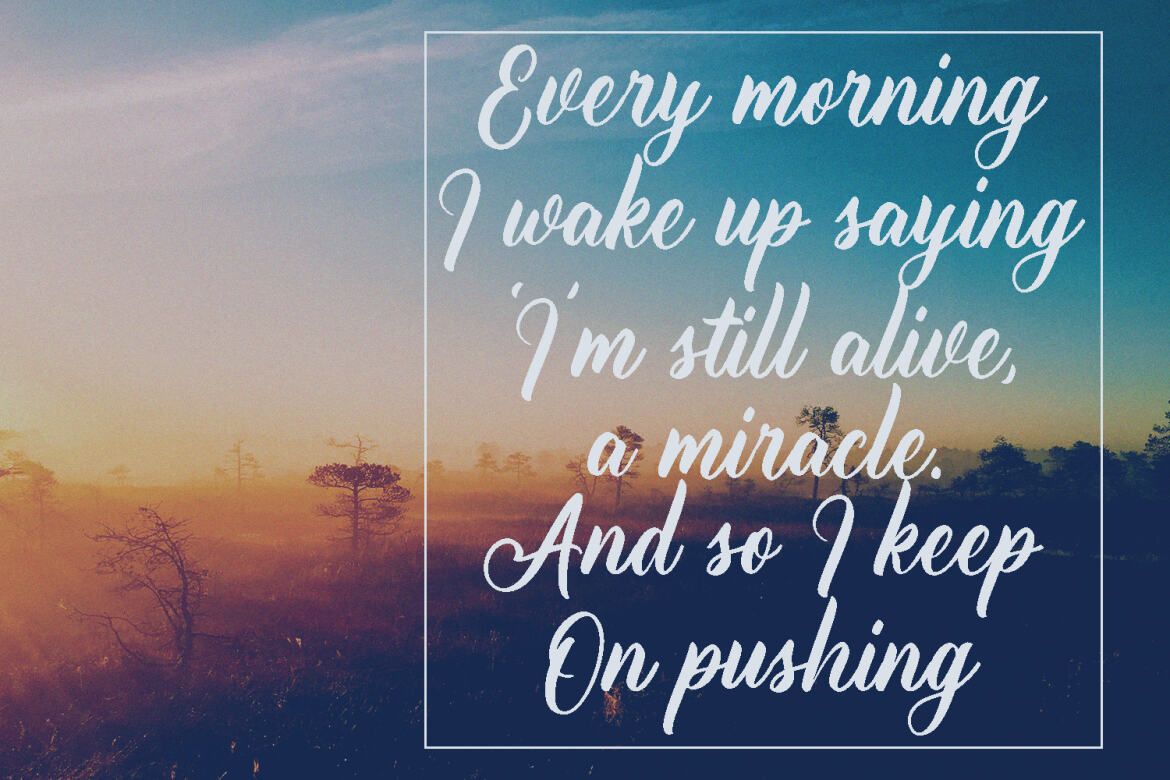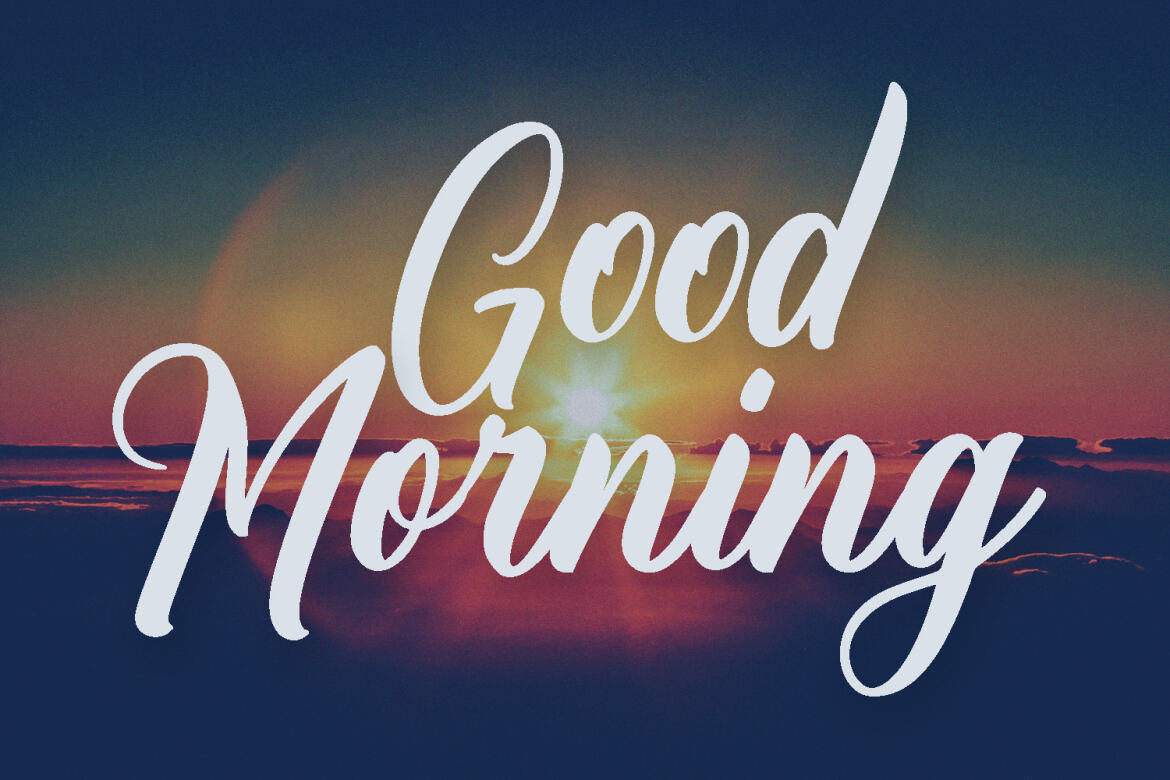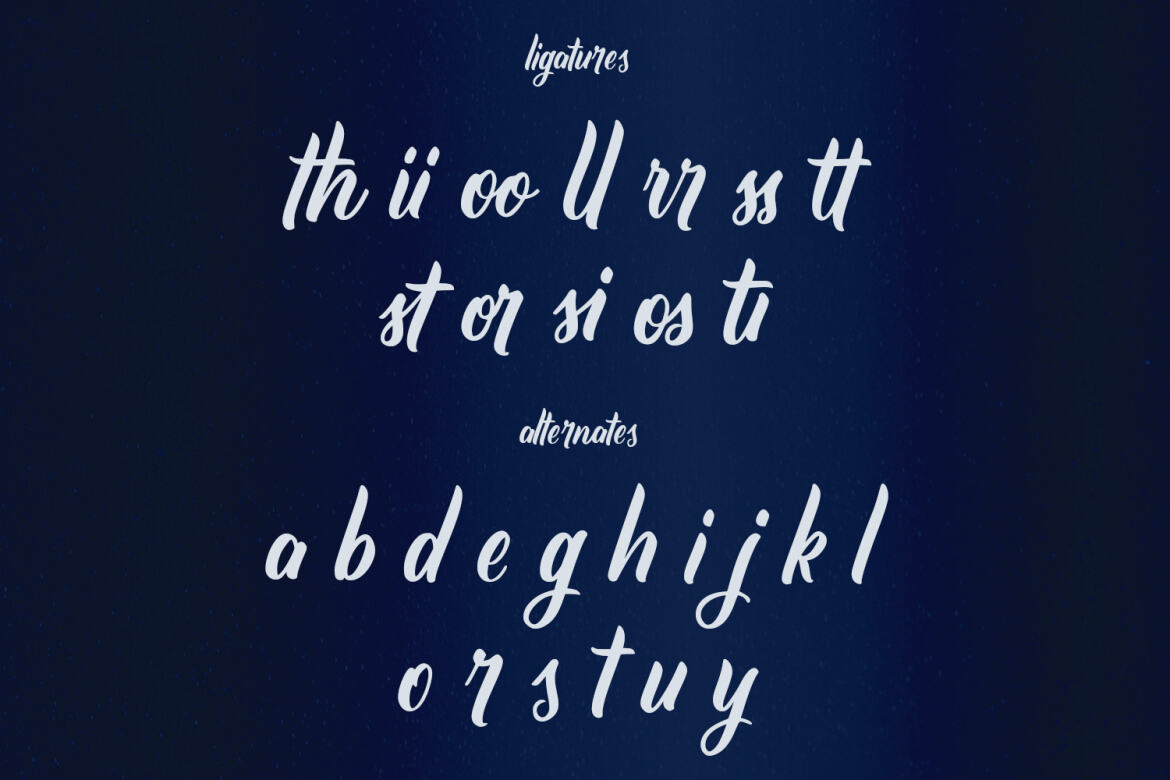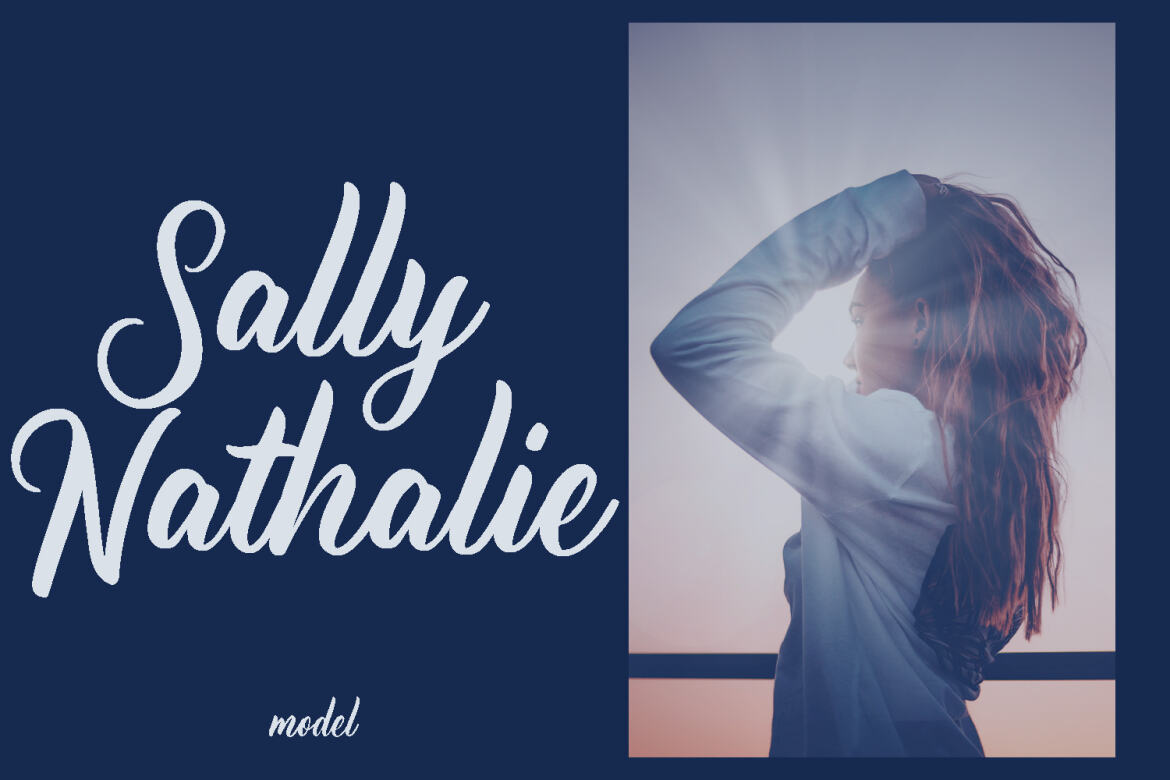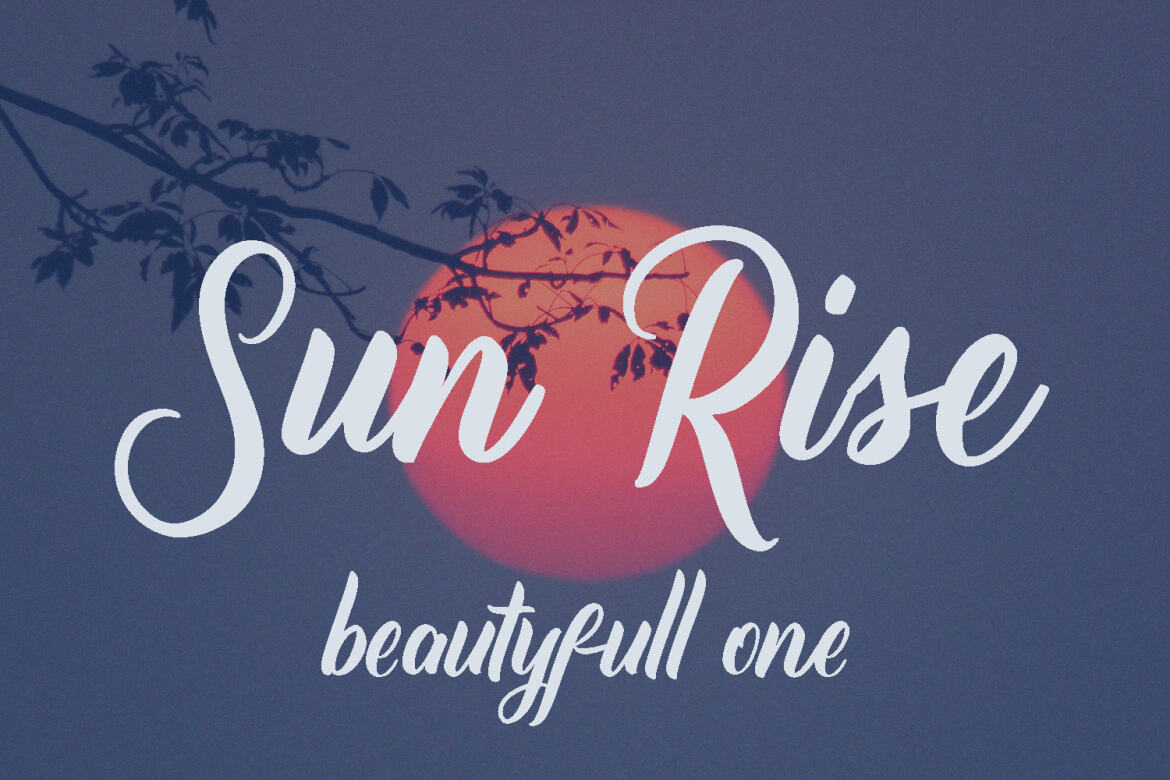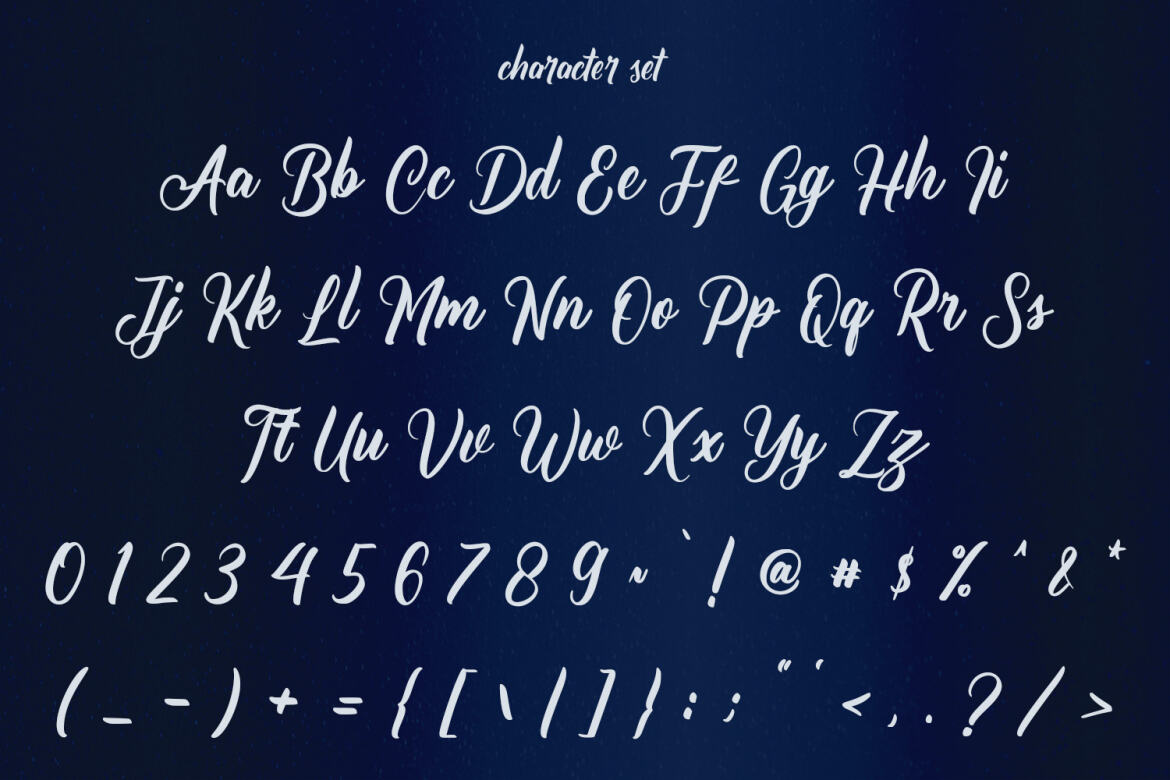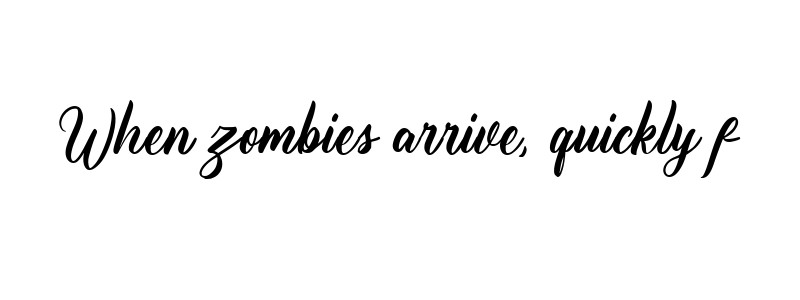
Corin Stacy FREE Script Font
Corin Stacy
Corin Stacy is a fancy calligraphic script font. With bold high contrast stroke, fun character with a bit of ligatures and alternates. To give you an extra creative work. Corin Stacy font support multilingual more than 100+ language. This font is good for logo design, Social media, Movie Titles, Books Titles, a short text even a long text letter and good for your secondary text font with sans or serif. Make a stunning work with Corin Stacy font.